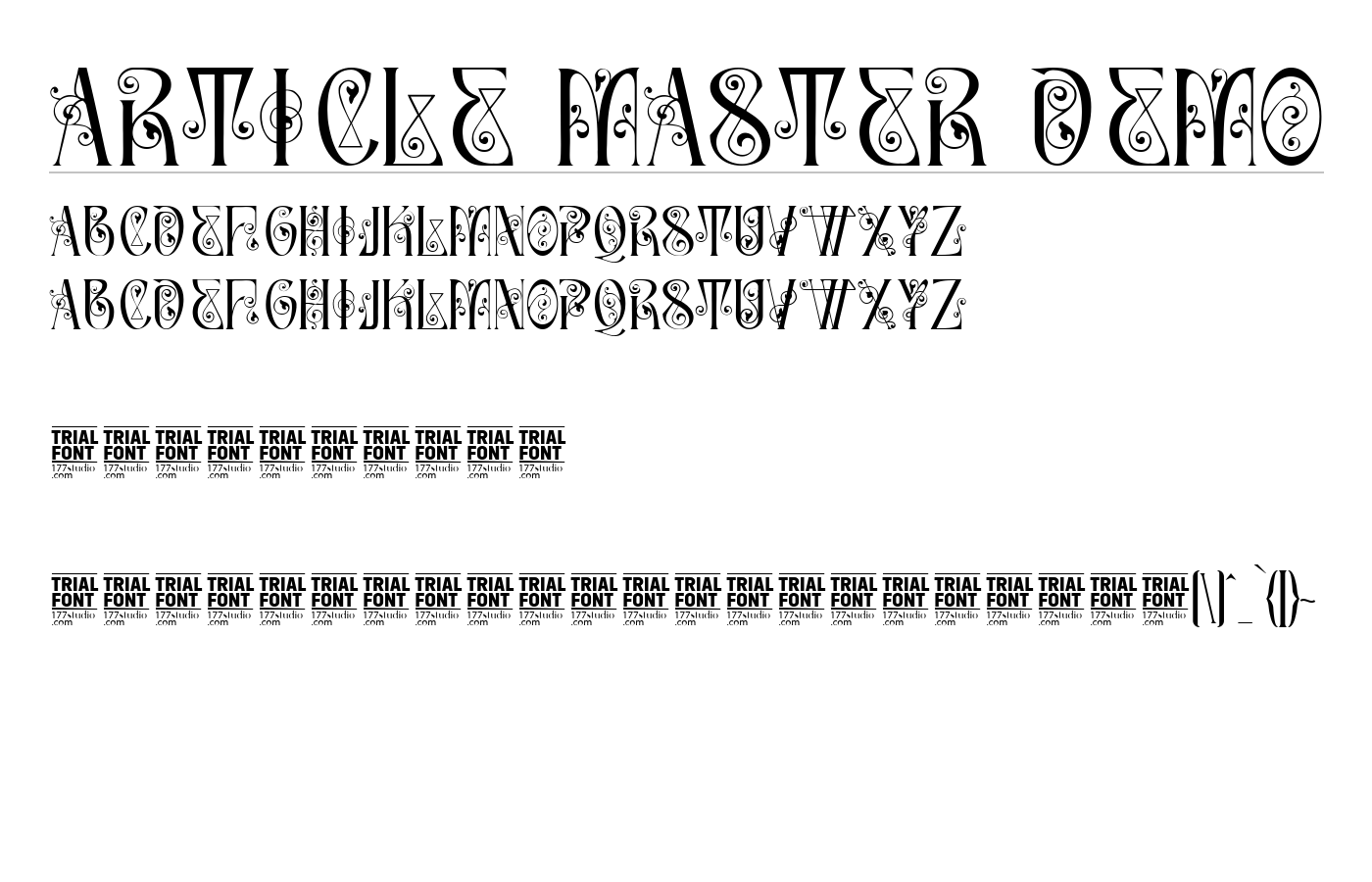
Article Master Demo is a highly decorative serif font filled with intricate swirls and flourishes, giving it a vintage and artistic personality. Its tall, narrow letterforms and striking contrast between thick and thin strokes make it ideal for eye-catching headlines, posters, and artistic branding where a unique, ornamental style is desired. This font works best in designs that want to convey elegance and creativity with a bold, theatrical flair.
Article Master Demo Font
About Article Master Demo Font
| Font family | Article Master Demo Font |
| Designer | 177Studio.com |